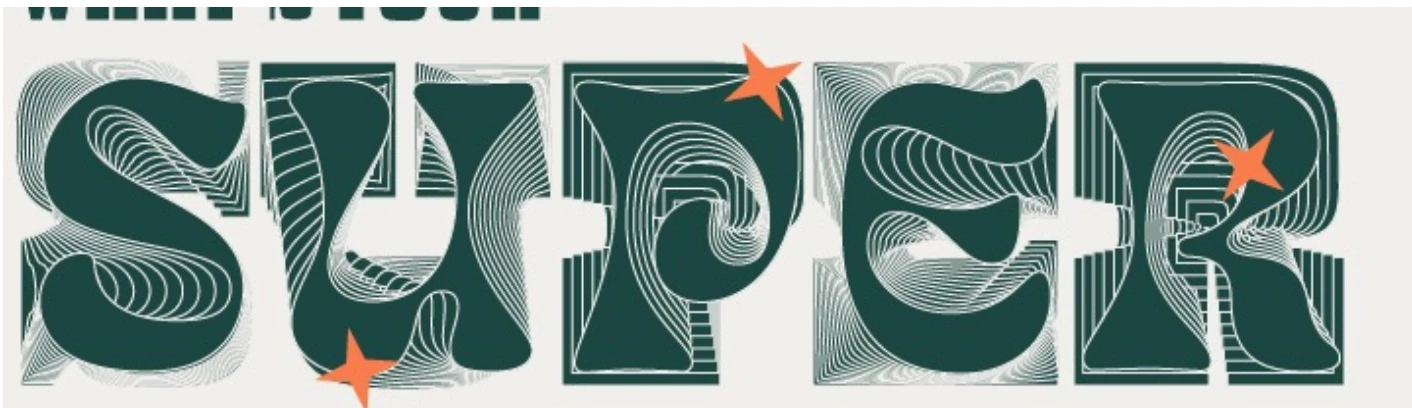
Adobe font Effect
Hi, I found this found and wasn't sure how to achieve the effect of the background Manicotti letters?
That effect can be duplicated using a blend between the two letter shapes in front and back.